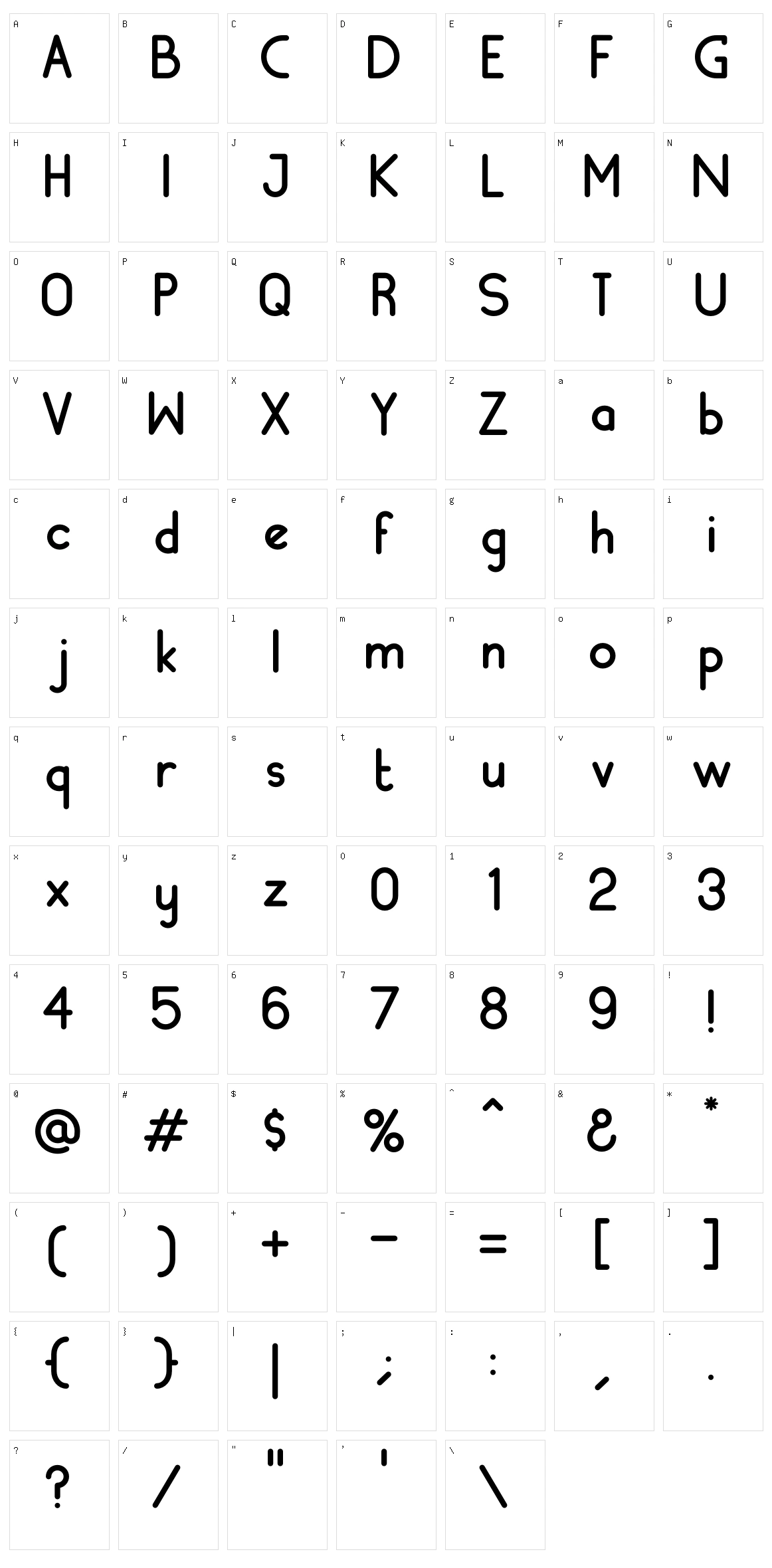
The free font Machala Sans is carefully designed by MeetDean, showcasing a thoughtful balance of creativity and usability and falls under the Sans serif font style. When you download the ZIP file, it contains only 57.27 KB of font files, making it lightweight and quick to download. Please review the license details below to understand permitted usage and distribution rights. If license information is not available, we recommend using this font for personal projects only or contacting the author directly for commercial usage permissions.
Machala Sans.